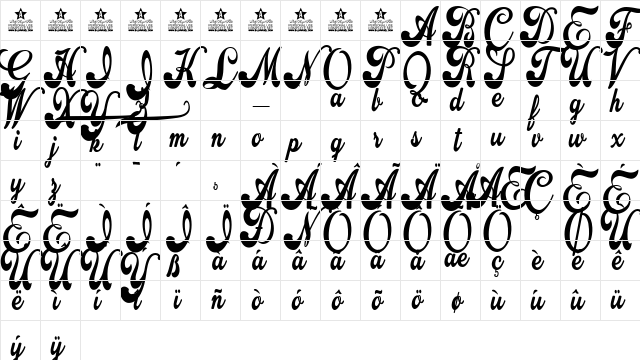
Attraction Personal Use Regular Free Font
Attraction Personal Use Regular
Foundry: Billy Argel
Designer: Billy Argel
Design Context for Attraction Personal Use
Attraction Personal Use is a composed and adaptable typeface that performs quietly and consistently across a wide range of design contexts.